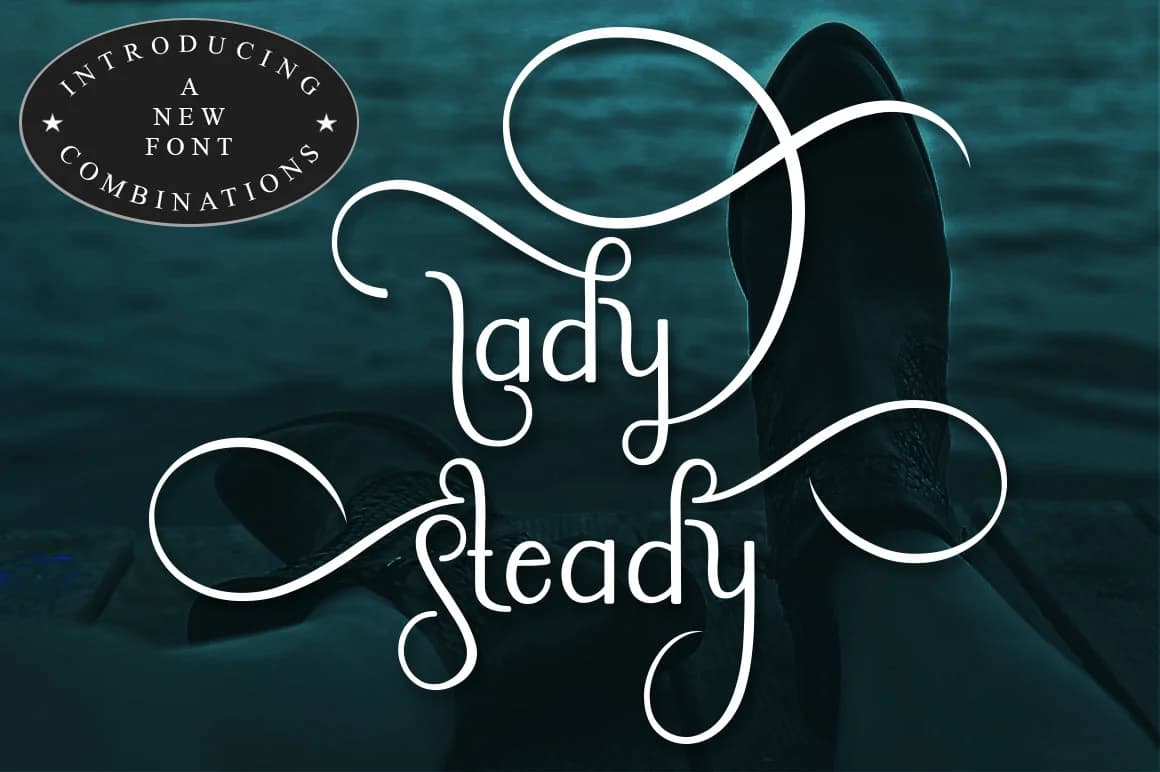
1 / 9About Lady Steady Font
Lady Steady Font by Vegas Type is a flowing, modern script with confident letterforms that balance formal elegance with everyday usability. The font achieves what many script families struggle with: genuine sophistication without sacrificing readability across various applications. This makes it particularly well-suited for projects where refined aesthetics matter but legibility cannot be compromised.
The typeface excels in several specific contexts. Wedding invitation suites benefit from its poised, graceful letter structure, while boutique product labels and custom product packaging showcase its contemporary yet timeless character. Creators designing personalized gift tags and DIY craft signage find Lady Steady's brushed forms work beautifully in both large display sizes and smaller applications. Its letterforms also translate well to event programs, custom greeting cards, and digital branding projects where a human touch enhances perceived value. Social media graphics, custom stationery design, and artisan label work all showcase the font's versatile personality.
Lady Steady maintains consistent stroke weight and clear letterforms throughout its character set, ensuring professional results whether you're working in print or digital formats. This reliability, combined with its adaptable nature, makes it a valuable addition to any designer's toolkit who regularly works with handwritten-style fonts. The balance between formality and approachability allows the typeface to work across luxury branding contexts and accessible, friendly applications alike. Whether you're a seasoned designer or exploring lettering styles for the first time, Lady Steady offers the polish and personality your projects deserve. Get Lady Steady Font on Creative Fabrica and start designing with confidence.
Lady Steady Font is a script font that shines as a display or heading face. Pair it with a clean sans-serif or serif font for body text β the contrast creates a clear hierarchy while the two styles stay balanced and easy to read.
Lady Steady Font
by Vegas Type